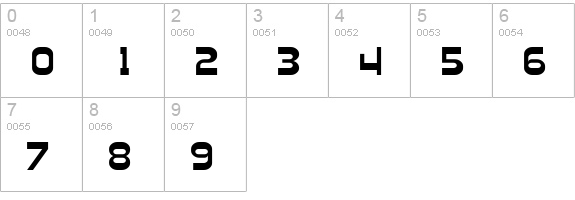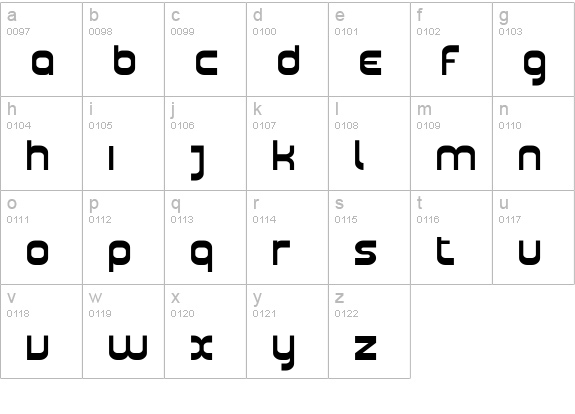
Plasmatica Ext Font Details
Plasmatica Ext font is a stunning display font that exudes a futuristic and energetic vibe. Its sleek and angular design captures the essence of modern technology and innovation, making it perfect for projects that require a bold statement. With its extended characters and sharp edges, Plasmatica Ext font commands attention and adds a touch of sophistication to any design. Whether used for headlines, logos, posters, or digital artwork, this font is sure to make a lasting impression. One of the best parts about Plasmatica Ext font is that it is completely free! Yes, you read that right. This incredible typeface is freely available to download at FontsMarket.com. So, whether you're a professional designer or a hobbyist, you can easily access and utilize this remarkable font without any cost. Plasmatica Ext font is not only visually striking but also highly versatile. It comes in a variety of weights and styles, allowing you to experiment and find the perfect fit for your creative vision. Its clean lines and well-defined characters ensure legibility, even at small sizes, making it suitable for various applications. So, if you're searching for a modern and attention-grabbing font that won't cost you a penny, look no further than Plasmatica Ext font. Download it now from FontsMarket.com and let your designs shine with its cutting-edge appeal.